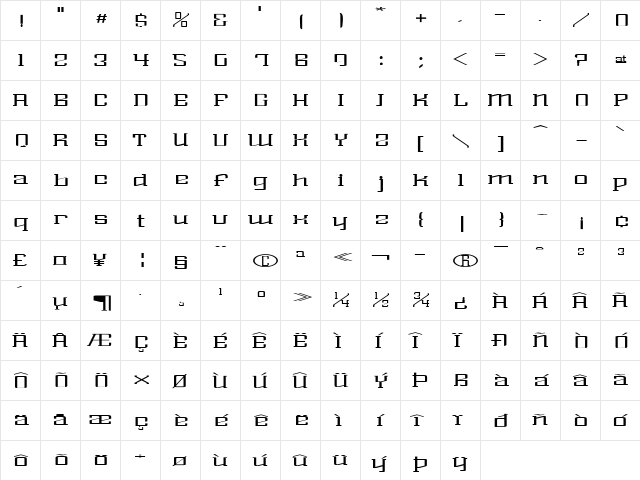
Alexander Light
Design Context for Alexander Typeface
Alexander is a composed and adaptable typeface that performs quietly and consistently across a wide range of design contexts. Its slender proportions lend an understated elegance to any composition.